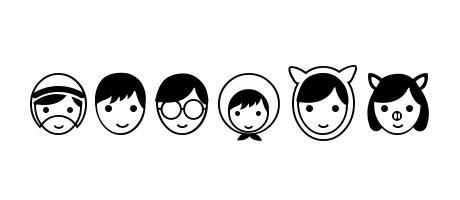
Senyum
By Adien Gunarta
SENYUM is a playful, minimalist font featuring a series of adorable, circular-faced characters. Each glyph is a simple line drawing of a child-like face, some with added details like hats or glasses. The overall style is friendly and charming, perfect for children's products or whimsical branding.